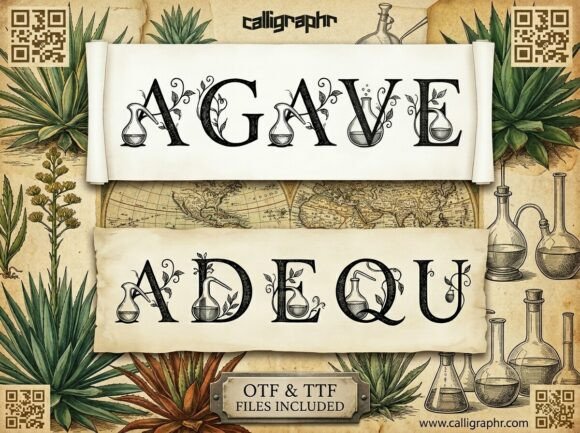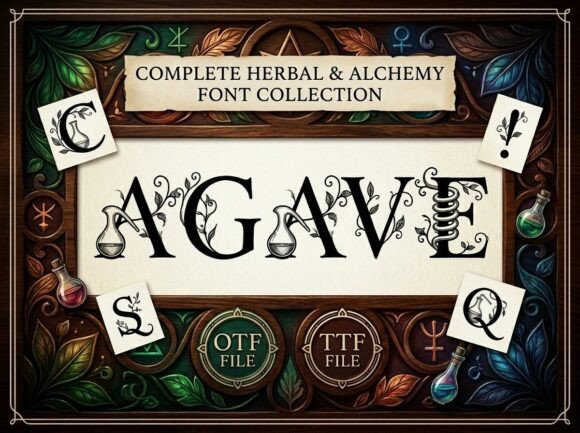
Brew a Sense of Mystery and Heritage with Agave Font
In the world of typography, few fonts capture the essence of mystery and heritage as beautifully as Agave. This exquisite display typeface is designed to evoke a sense of botanical and apothecary elegance, making it the perfect choice for craft tequila branding, artisanal apothecary logos, botanical illustration titles, and social media headers.
The Inspiration Behind Agave Font
Agave font is inspired by the classic serif letterforms, intricately intertwined with hand-drawn agave plants, delicate vines, and alchemical laboratory glassware. The font features retorts, flasks, and other equipment commonly found in traditional apothecaries. This unique blend of natural and scientific elements creates a distinctive aesthetic that is both captivating and memorable.
Key Features of Agave Font
Agave font boasts several key features that make it an exceptional choice for designers and crafters. Some of its notable features include:
- Classic Serif Letterforms: Agave font features traditional serif letterforms, providing a sense of heritage and timelessness.
- Hand-Drawn Agave Plants: The font includes intricate illustrations of agave plants, adding a touch of natural elegance.
- Delicate Vines and Glassware: Agave font also features delicate vines and alchemical laboratory glassware, such as retorts and flasks, which evoke a sense of mystery and scientific curiosity.
- Detailed Stippled Shading: The font’s detailed stippled shading adds depth and texture, creating a visually striking effect.
- Rhythmic, Scientific Aesthetic: Agave font’s rhythmic, scientific aesthetic makes it perfect for designs that require a sense of balance and harmony.
Applications of Agave Font
Agave font is an incredibly versatile typeface, suitable for a wide range of applications. Some of the most popular uses for Agave font include:
- Craft Tequila Branding: Agave font is an ideal choice for craft tequila branding, as it evokes the spirit of Mexico and the traditional production of tequila.
- Artisanal Apothecary Logos: The font’s apothecary-inspired design makes it perfect for artisanal apothecary logos, conveying a sense of heritage and expertise.
- Botanical Illustration Titles: Agave font’s elegant, natural aesthetic makes it suitable for botanical illustration titles, adding a touch of sophistication and refinement.
- Social Media Headers: The font’s striking design and rhythmic aesthetic make it perfect for social media headers, particularly for herbal-alchemy and botanical-related content.
Why Choose Agave Font?
Agave font offers a unique combination of style, elegance, and versatility, making it an excellent choice for designers and crafters. Here are some reasons why you should consider using Agave font:
- Unique Aesthetic: Agave font’s distinctive blend of natural and scientific elements creates a captivating aesthetic that sets it apart from other typefaces.
- High-Impact Designs: The font’s detailed stippled shading and rhythmic aesthetic make it perfect for high-impact designs that require attention-grabbing typography.
- Crafting a Brand Story: Agave font’s heritage-inspired design allows you to craft a brand story that resonates with your audience, conveying a sense of tradition and expertise.
Agave font is an exquisite display typeface that captures the essence of mystery and heritage. Its unique blend of classic serif letterforms, hand-drawn agave plants, delicate vines, and alchemical laboratory glassware makes it perfect for craft tequila branding, artisanal apothecary logos, botanical illustration titles, and social media headers. With its detailed stippled shading and rhythmic, scientific aesthetic, Agave font is an exceptional choice for designers and crafters looking to create high-impact designs that evoke a sense of elegance and sophistication.